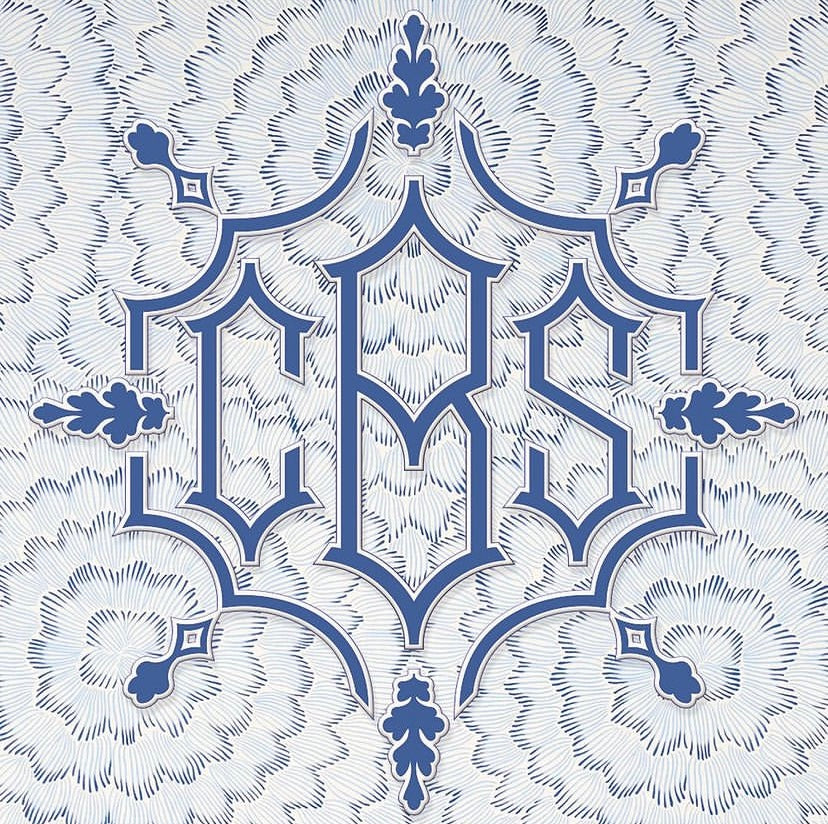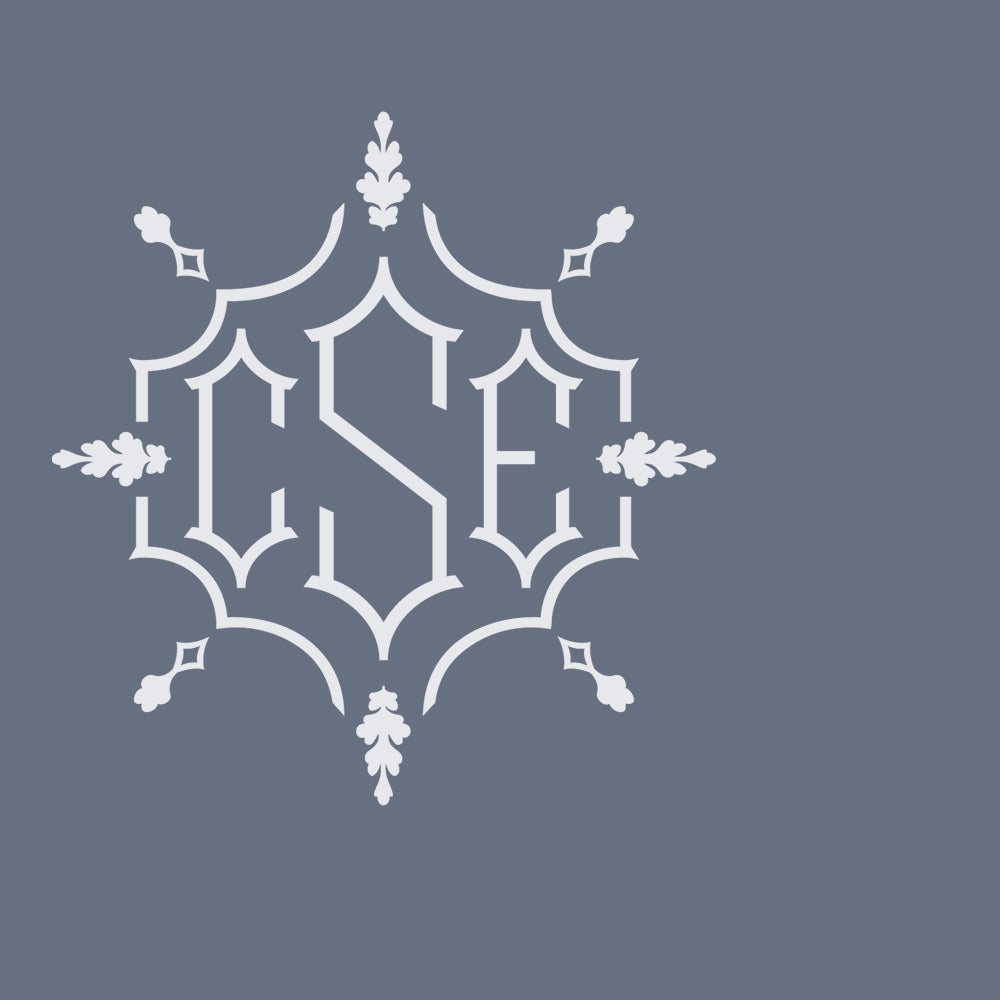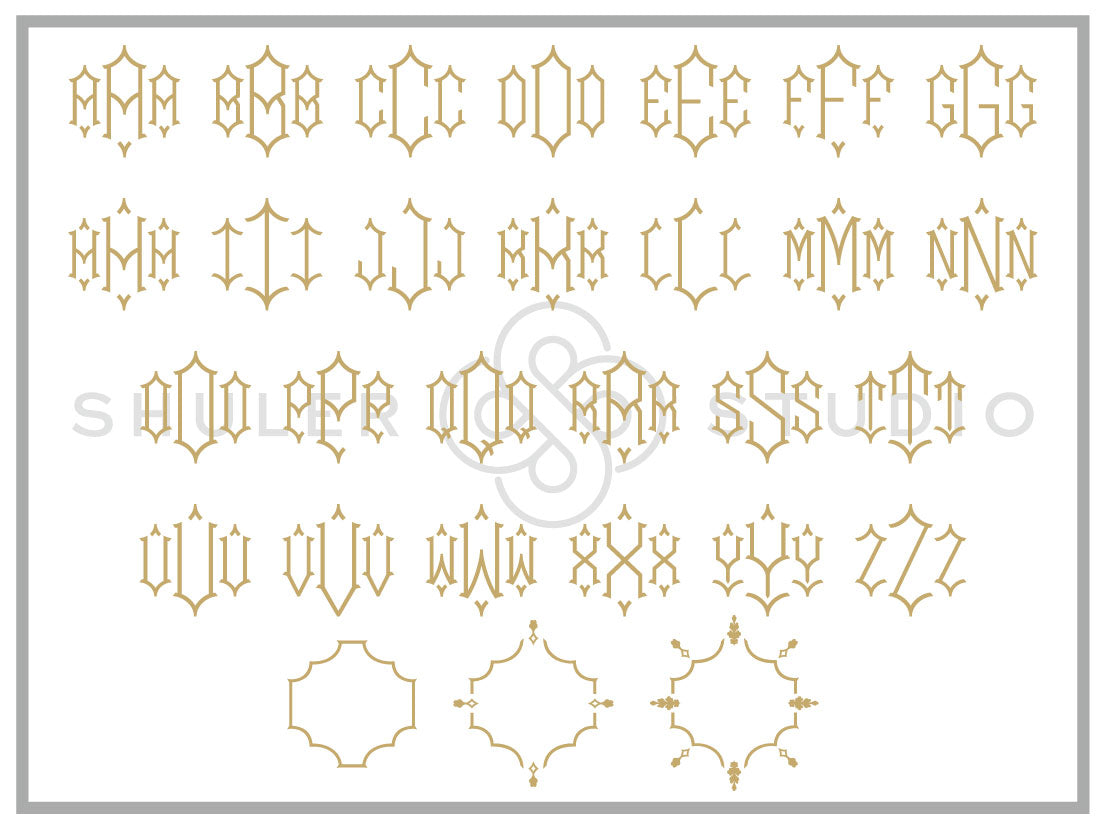
Monogram Chinoiserie is an elegant and unique take on traditional Chinoiserie designs - perfect for invitation suites, notecards, and more. Simply type the 3 letters on your keyboard, and it will automatically create the monogram for you!
This package also includes 3 beautiful frames to complement each monogram.
Frames can easily be accessed by typing numbers 1, 2, and 3.